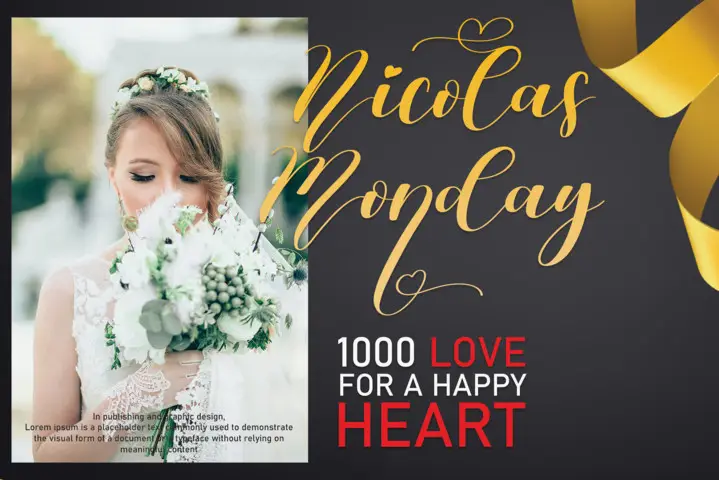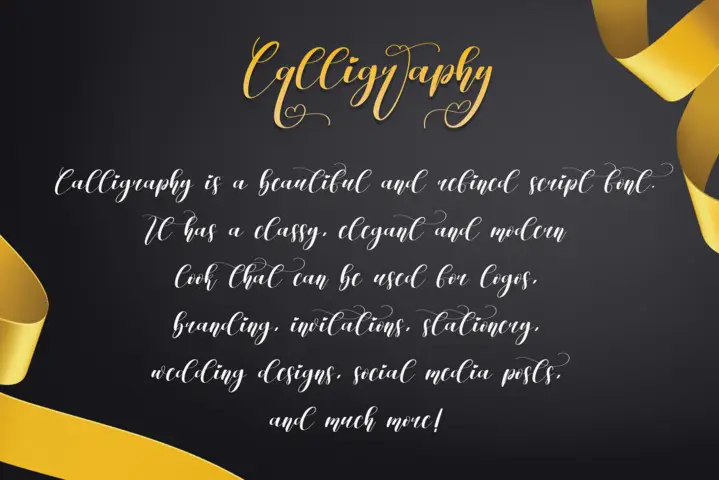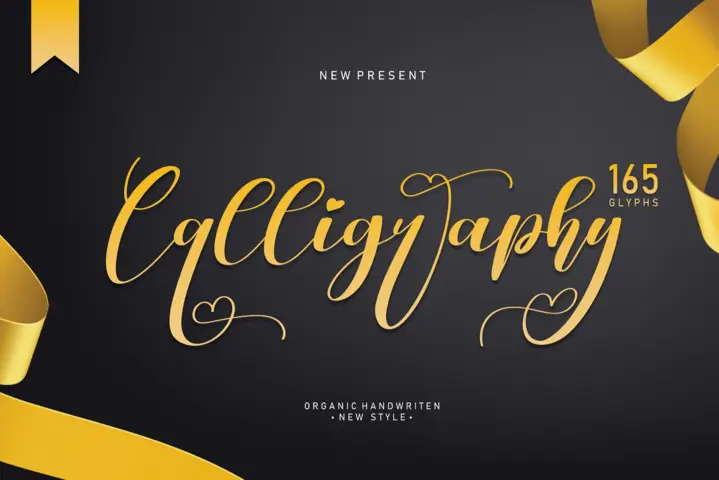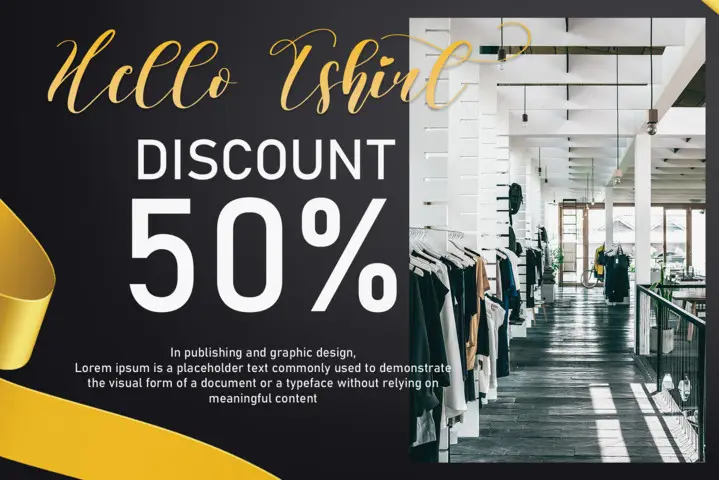
Calligraphy Font
The Calligraphy Font is a beautifully crafted typeface that embodies elegance and sophistication. Perfect for a variety of design projects, this font features a unique blend of flowing strokes and artistic flair, making it ideal for invitations, branding, and more.
• Stylish calligraphy design
• Easy to read at various sizes
• Suitable for web and print applications
• Ideal for wedding invitations, greeting cards, and personal branding
• Combine with sans-serif fonts for a modern look
• Use in logo designs to convey a sense of luxury and creativity